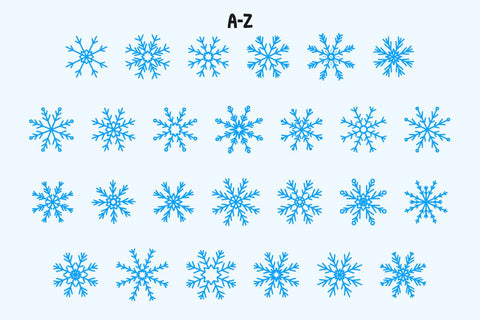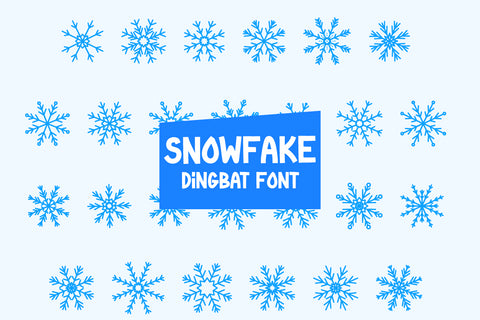
Snowfalke - Dingbat Font
Snowfake is a Dingbat font containing glyphs of snowflake shapes in a cute doodle style. This font is inspired by the Christmas theme